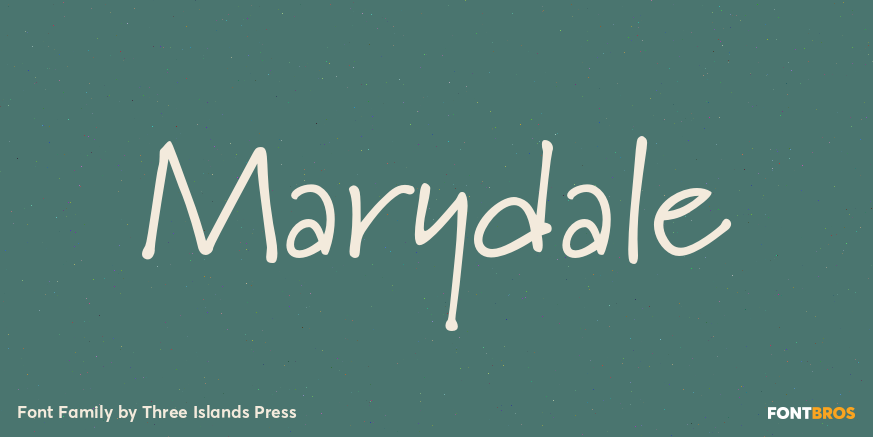
Marydale
While helping produce a trade magazine years ago, I admired the hand-lettering of the art director — a woman named Marydale — and suggested she let me model a font after her penmanship. She agreed and drew out the alphabet, and I launched an old copy…